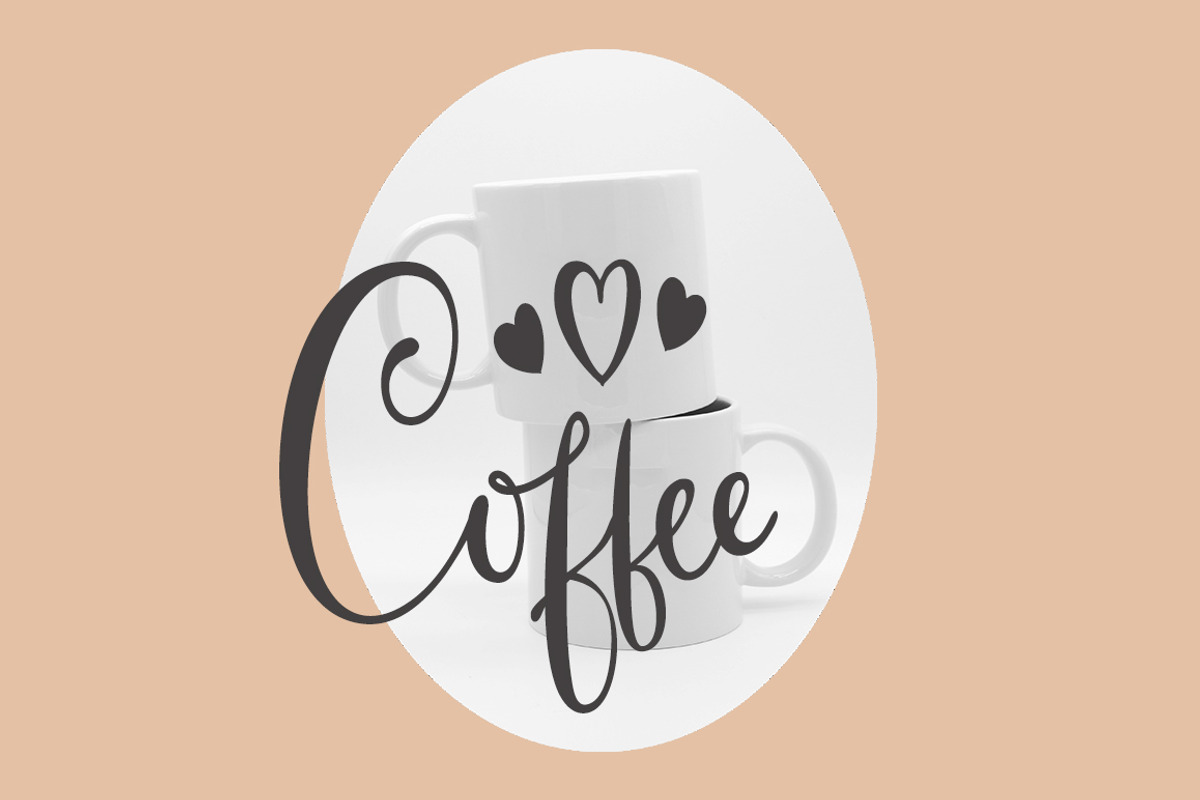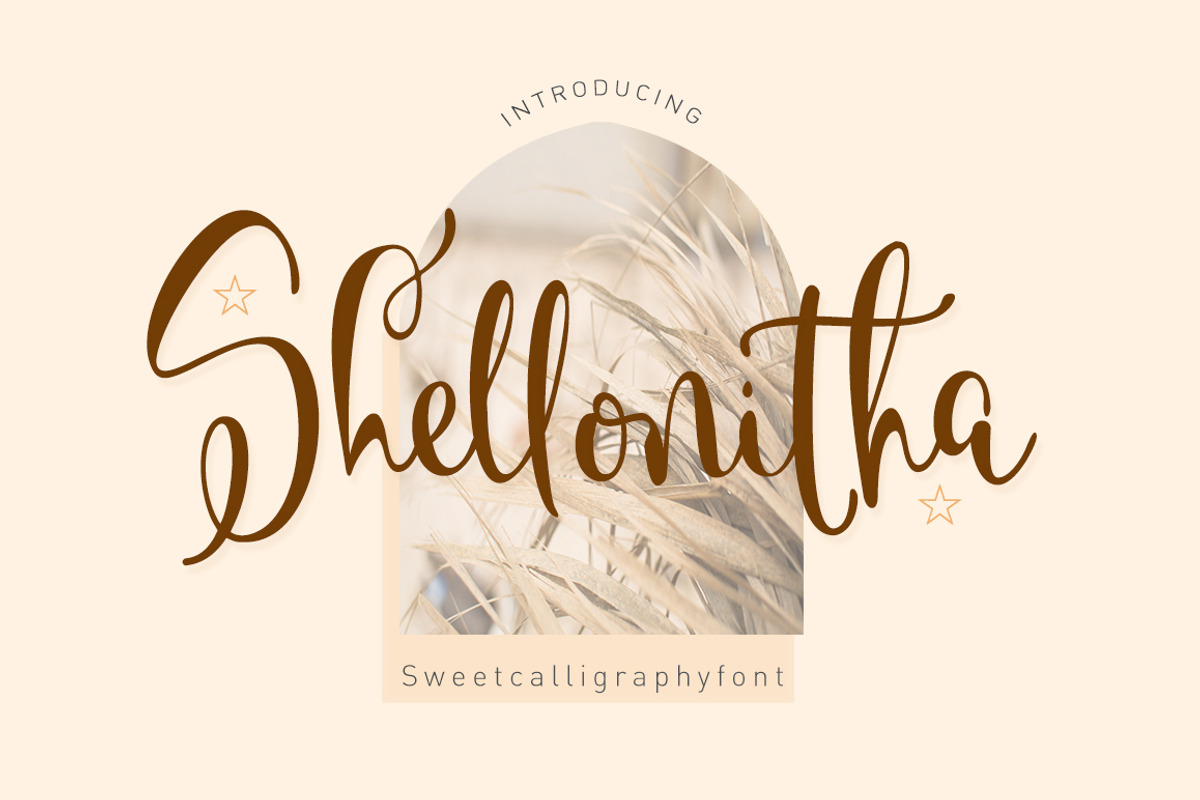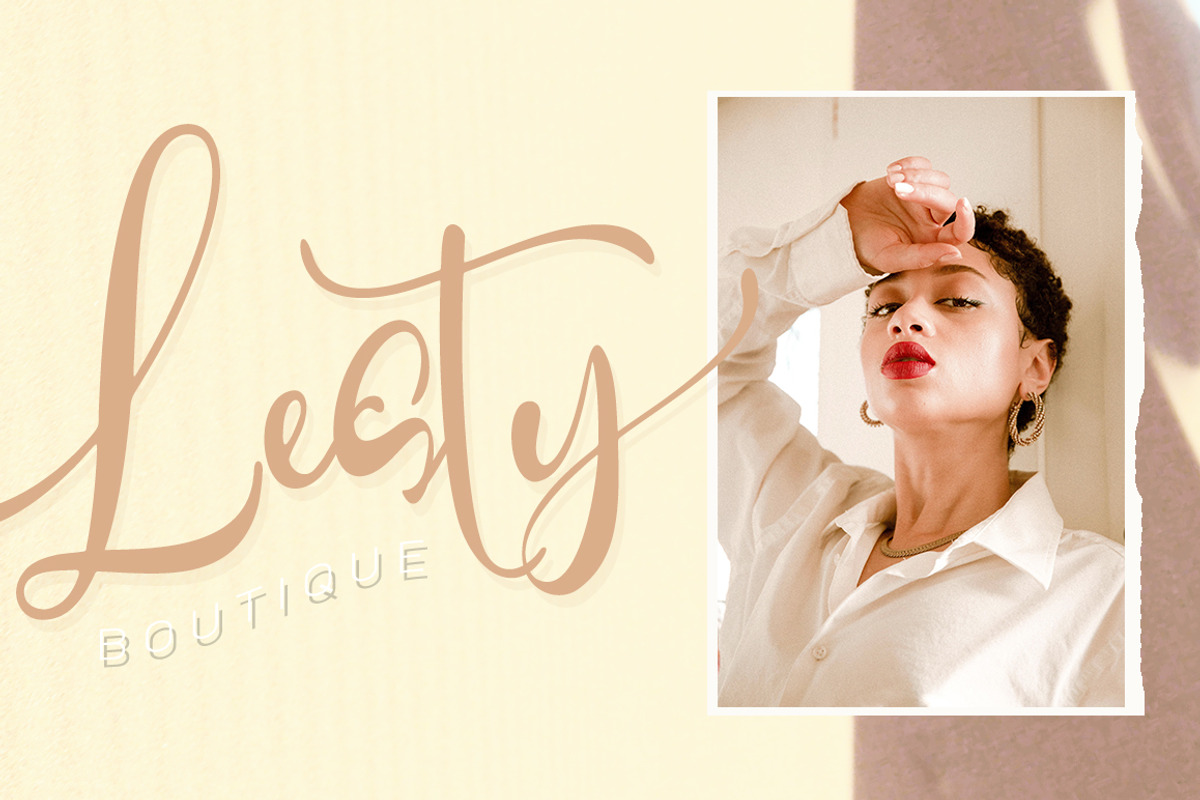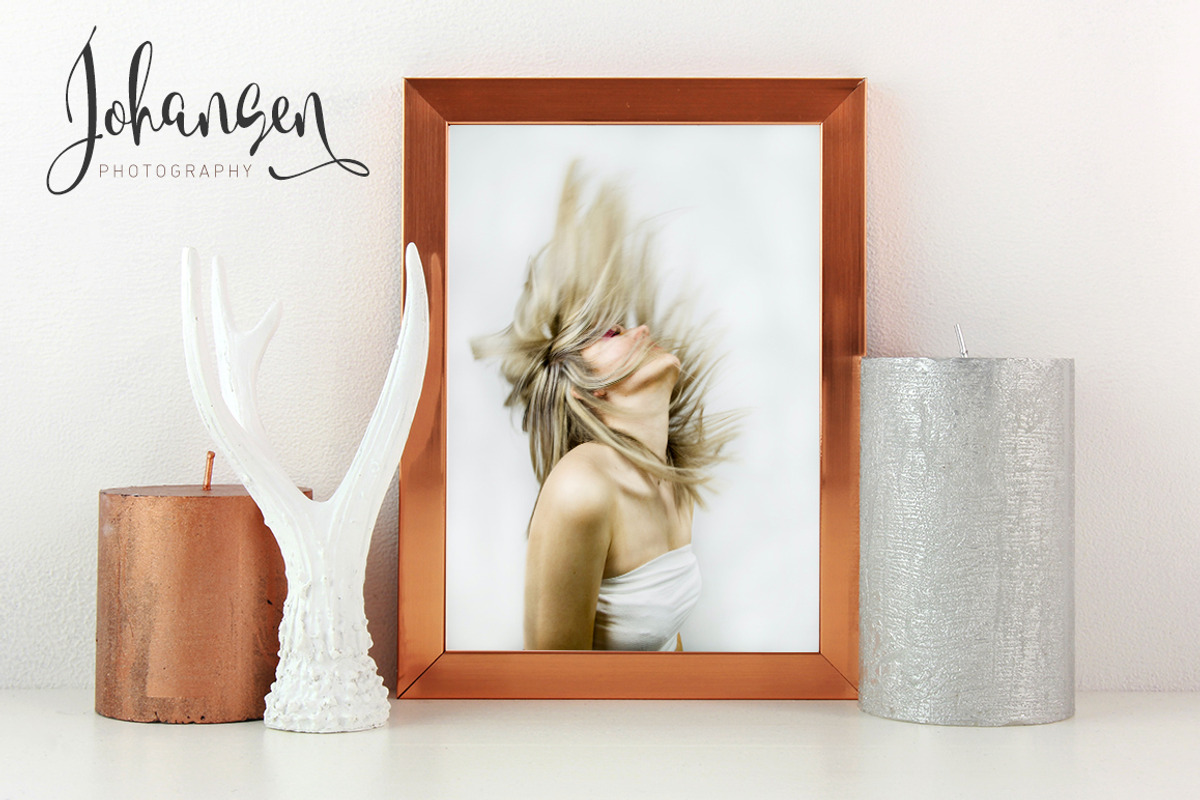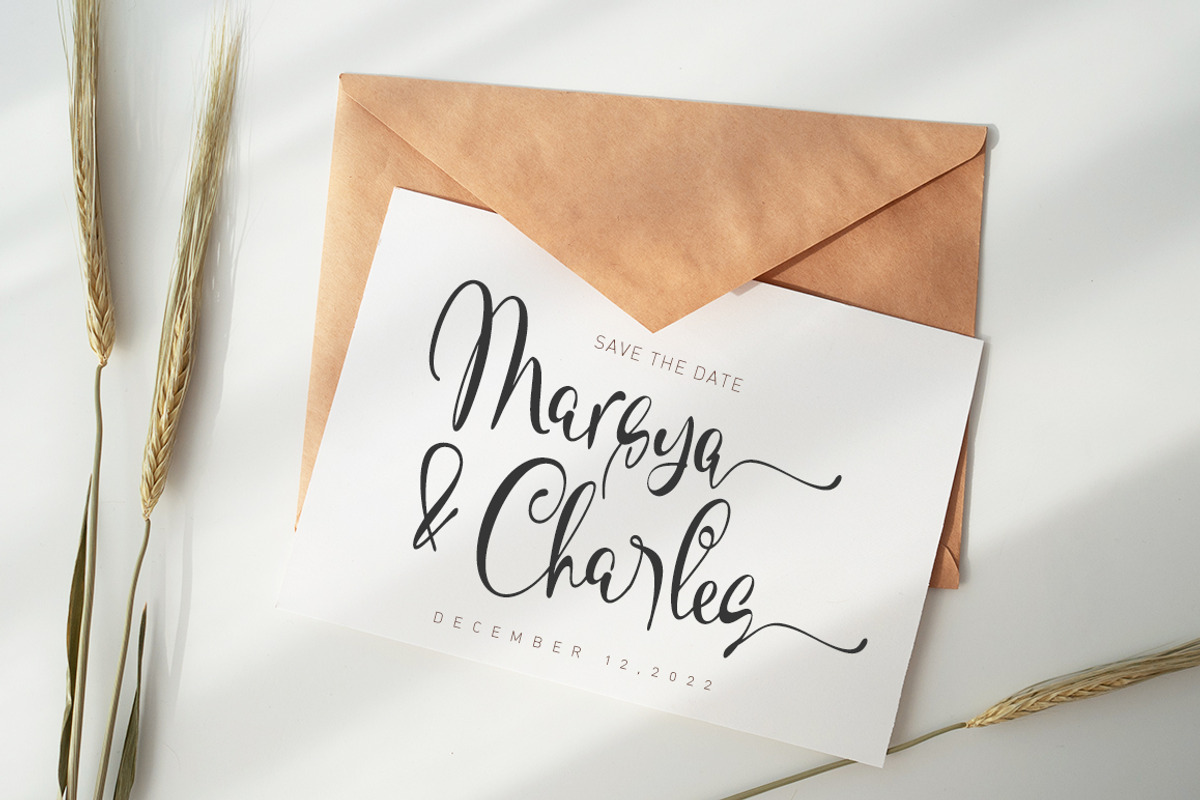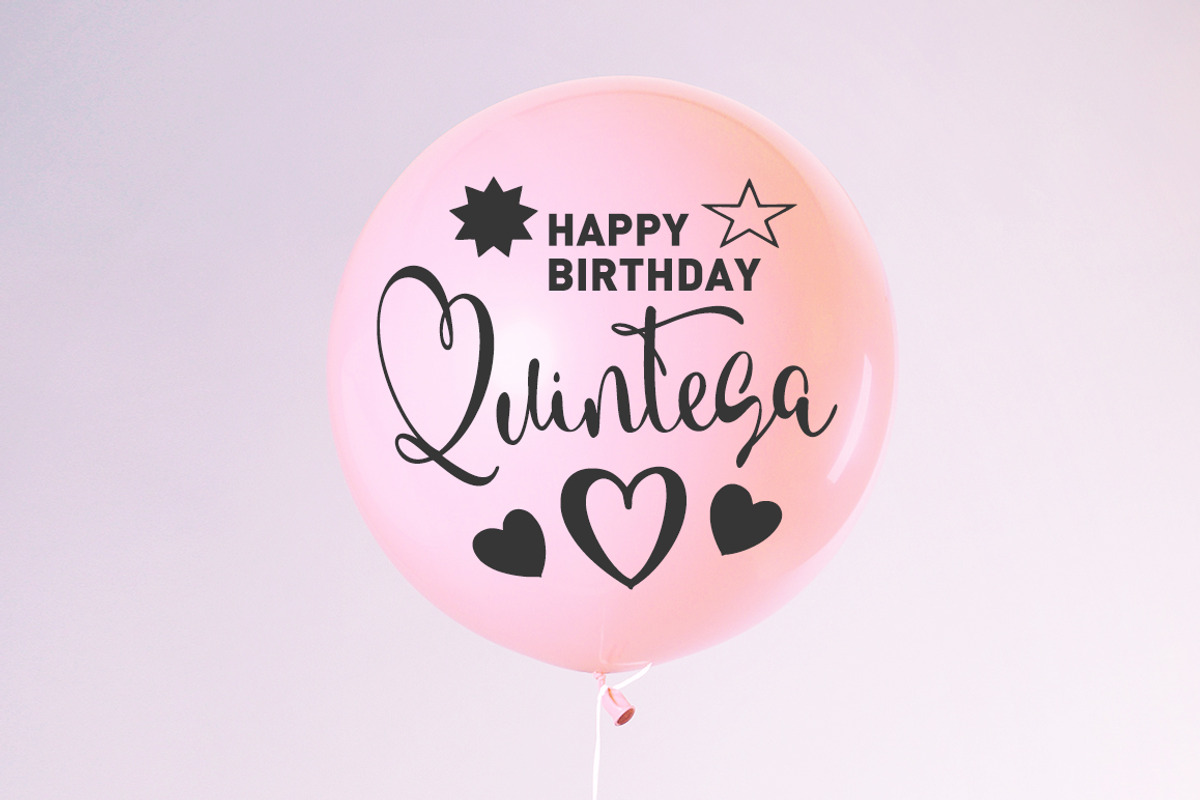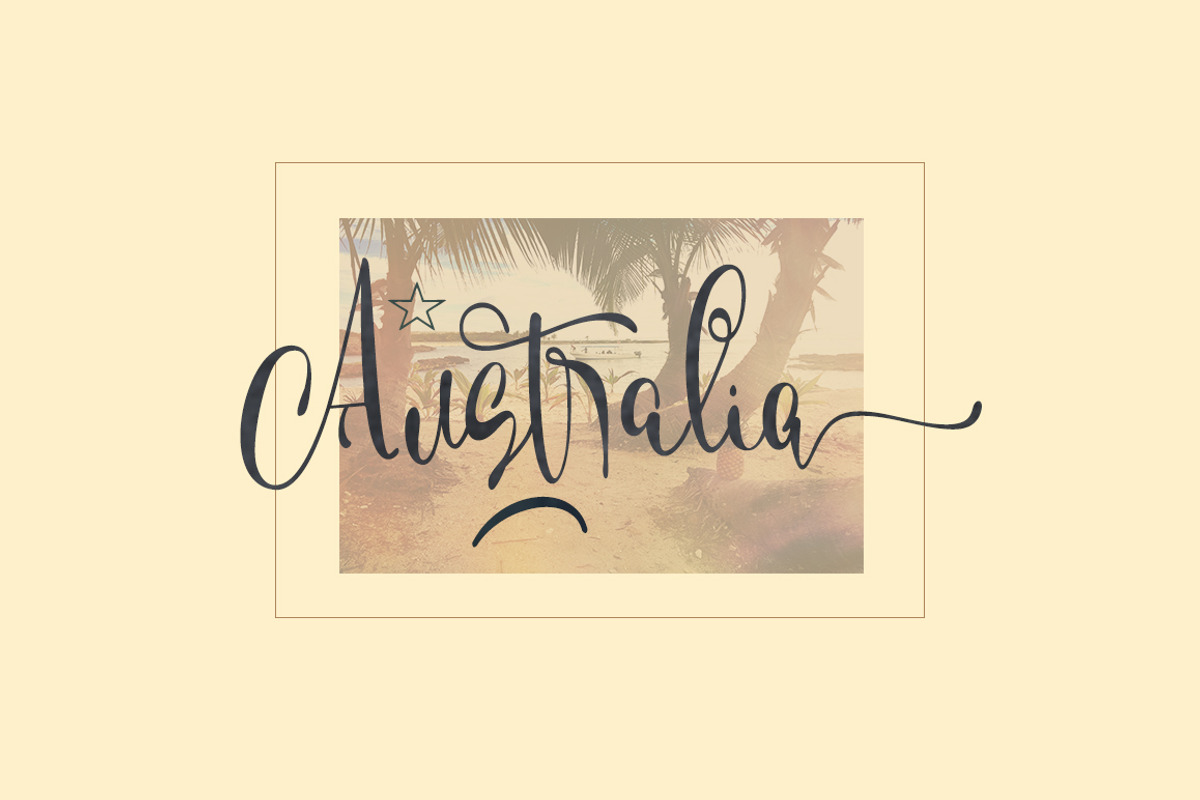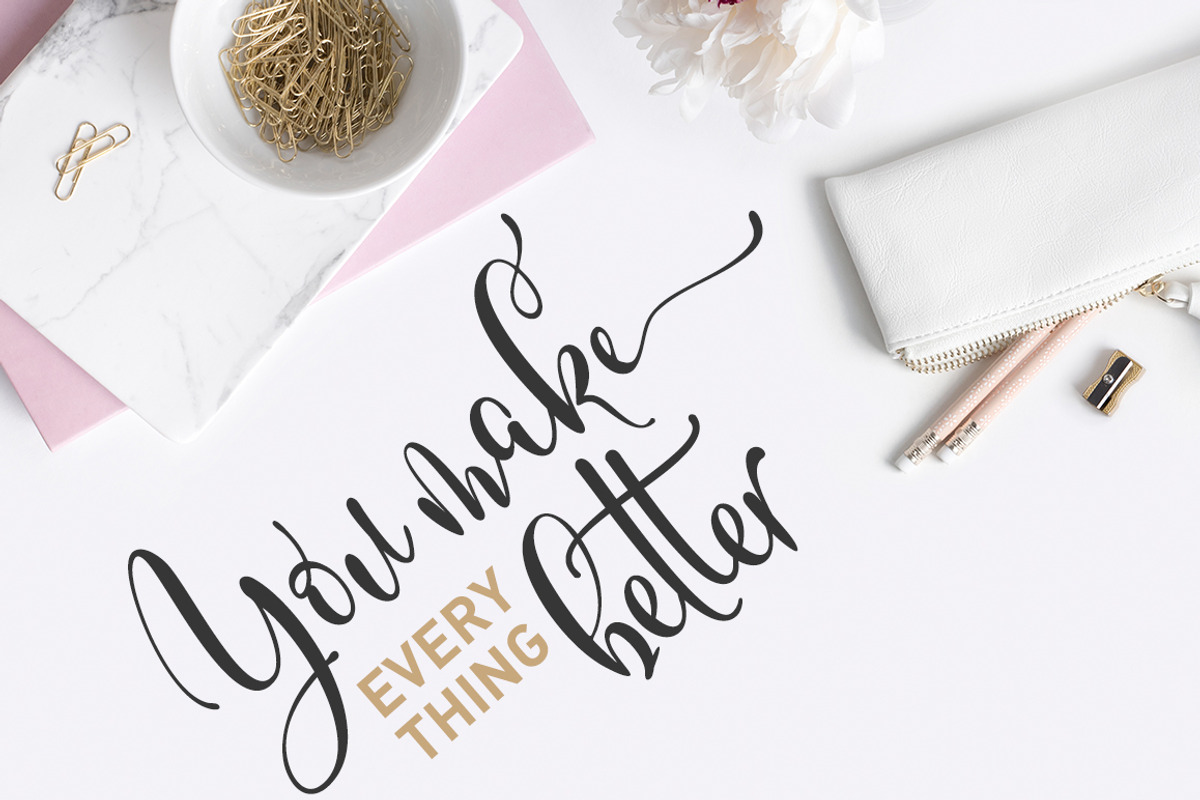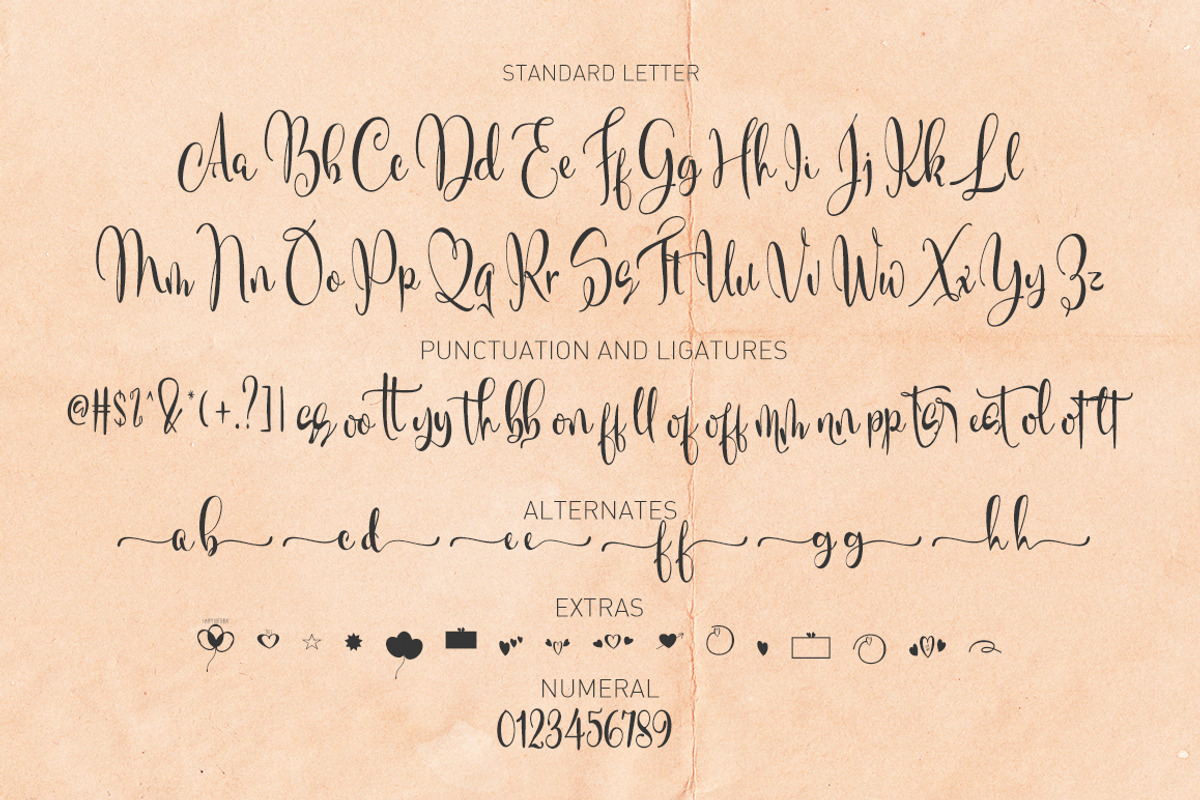
Shellonitha
Shellonitha plus Extras is a lovely, modern calligraphic script. It features dynamic and pretty swashes and can be used for many purpose, such as titles, signatures, logos, wedding invitations, letterhead, signage, labels, newsletters, posters, badges, etc.
Shellonitha features OpenType, including the initial and terminal letters, ligatures and International support for most Western languages included.